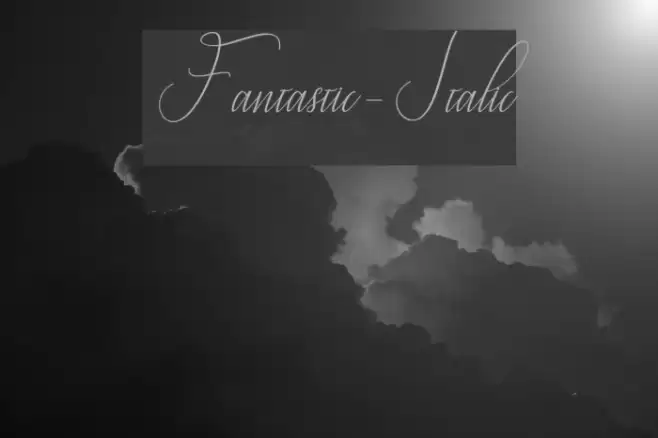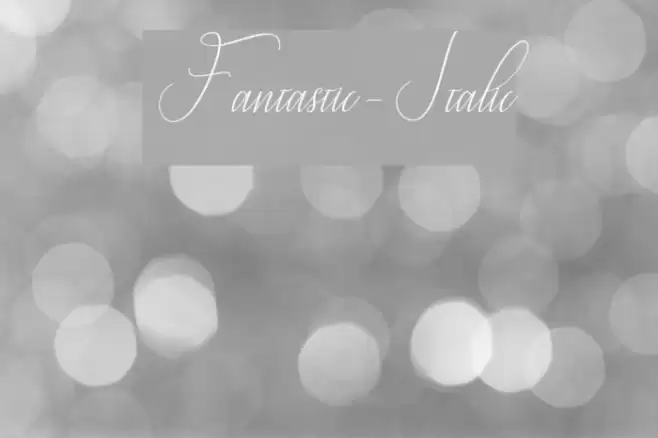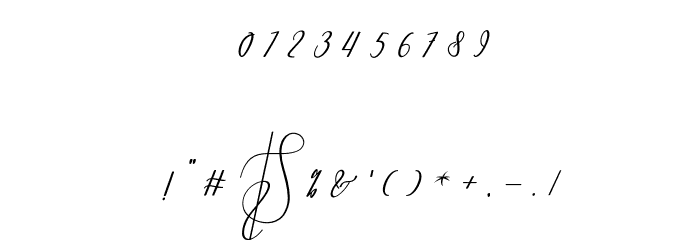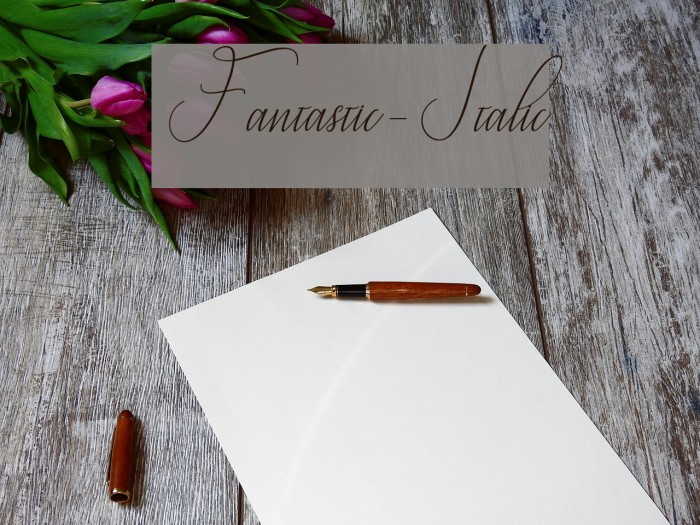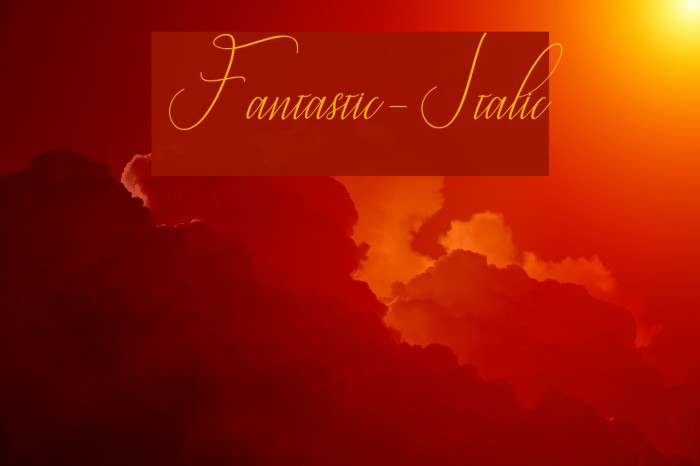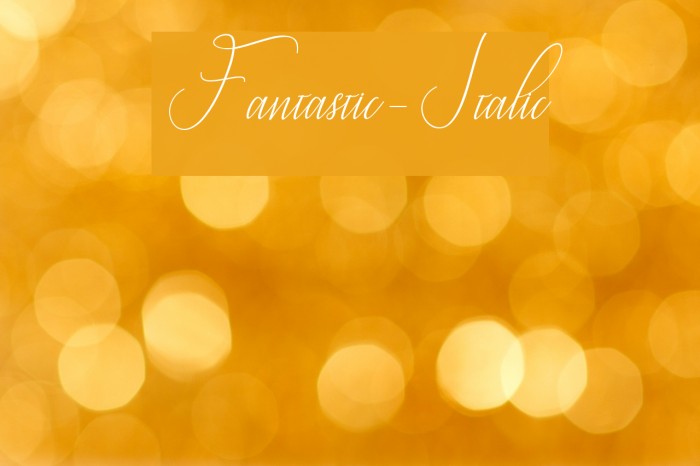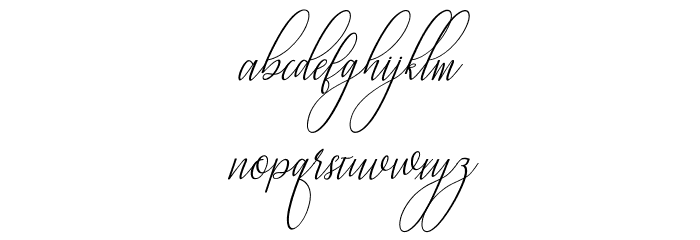
Fantastic-Italic Font
Fantastic-Italic Description
This elegant script font features flowing, cursive letters with a sophisticated flair. The uppercase characters are beautifully looped and connected, while the lowercase letters maintain a graceful continuity. The numerals are stylishly curved, complementing the overall aesthetic. Special characters are intricately designed, adding a touch of luxury. The font's delicate strokes and high contrast between thick and thin lines give it a refined and classic appearance, perfect for formal invitations and elegant branding.
An elegant script font with flowing, cursive letters and high contrast from Uncategorized fonts.
- Proposed Projects: Ideal for wedding invitations, luxury branding, elegant stationery, and high-end product packaging.
- Overall Style: Classic
- Use Case: Logos, Invitations, Branding